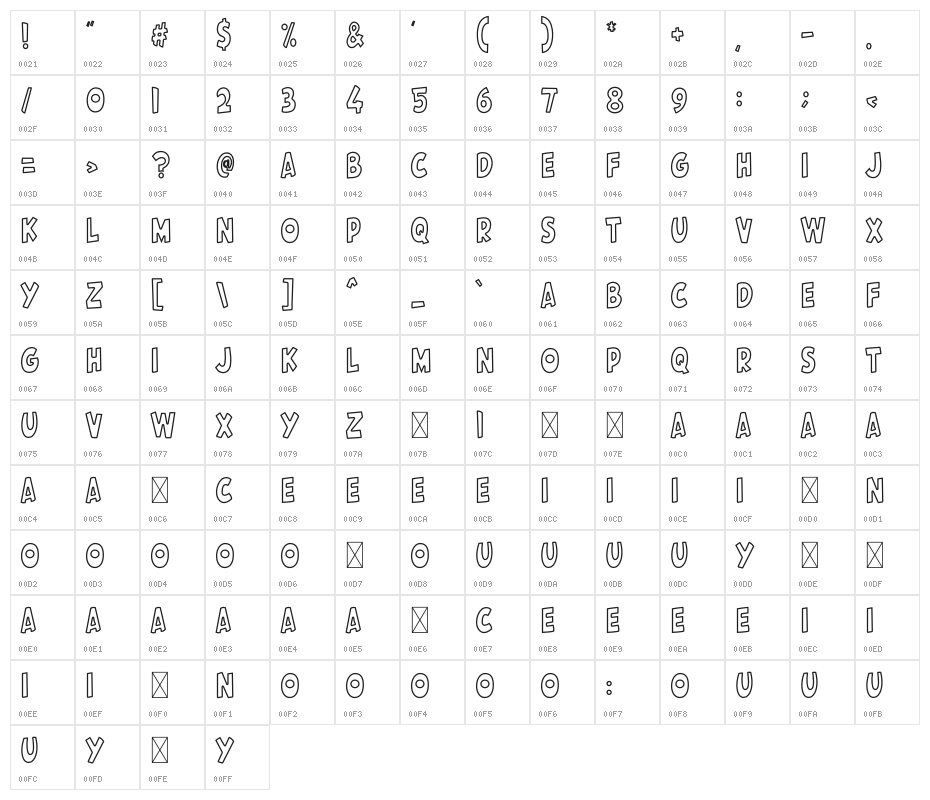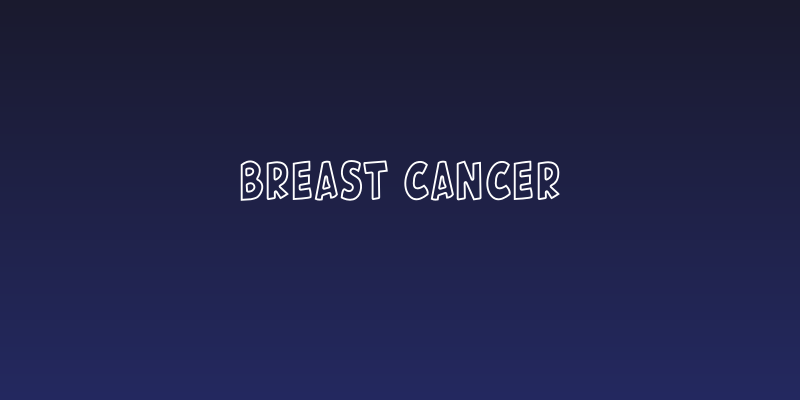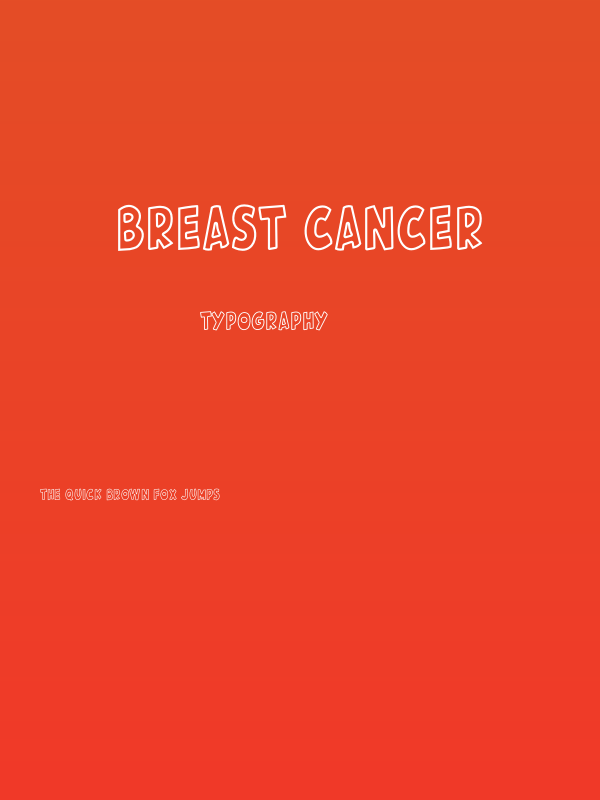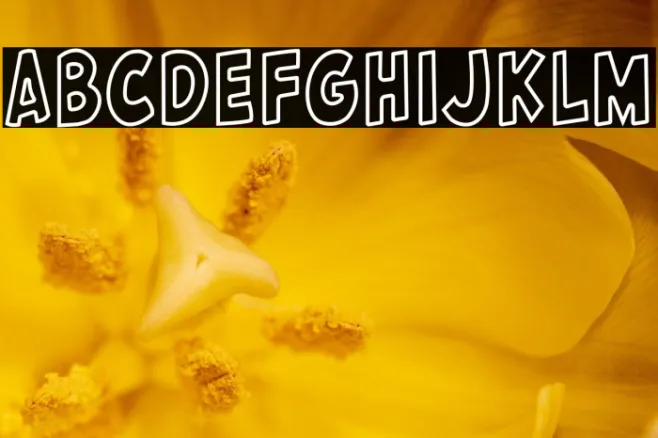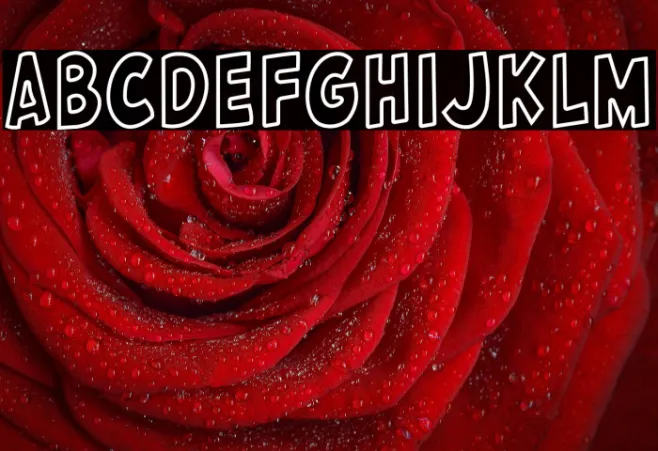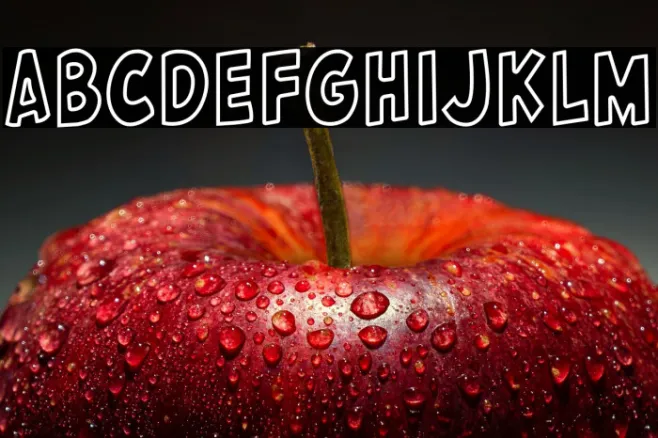
Breast Cancer Font
Breast Cancer Description
A playful, bold, and outlined font with a hand-drawn appearance, featuring slightly irregular shapes and a casual style.
| Use Case | Headlines, Posters, Logos |
| Proposed Projects | Children's books, posters, casual branding. |